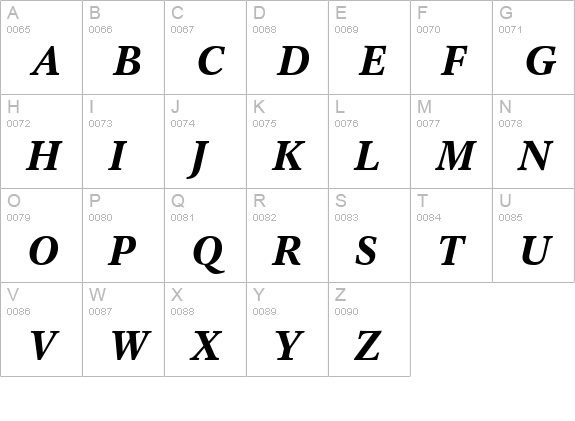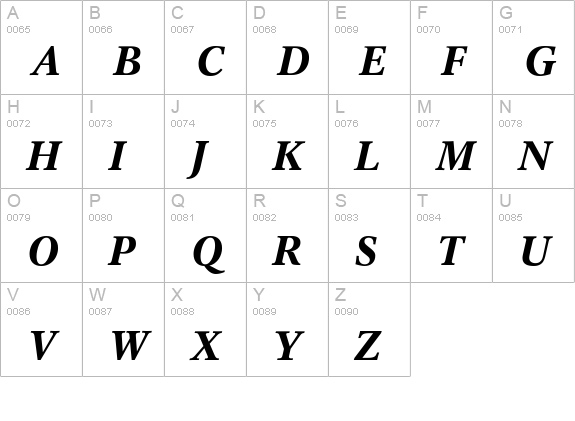
Informatics SSi Bold Italic Font Details
Informatics SSi Bold Italic is a strong, high-contrast, italic variant in the Informatics typeface family \xE2\x80\x94 well suited to headlines, attention-grabbing titles, and strong calls-to-action.
Informatics SSi Bold Italic is a captivating and stylish font that brings a modern and sophisticated touch to any design project. Its bold and italicized characters exude confidence and elegance, making it perfect for creating eye-catching headlines, titles, and logos. This font is not only visually stunning but also highly functional. Its well-crafted design ensures readability at various sizes, making it suitable for both print and digital applications. Whether you are designing a magazine spread, a website interface, or a corporate presentation, Informatics SSi Bold Italic will effortlessly elevate your design to the next level. What makes Informatics SSi Bold Italic even more appealing is that it is freely available to download at FontsMarket.com. This means that you can enhance your projects with this exceptional font without any financial constraints. Whether you are a professional designer or a passionate hobbyist, having access to high-quality fonts like Informatics SSi Bold Italic can significantly enhance the visual impact of your work. With its sleek curves, sharp lines, and bold presence, Informatics SSi Bold Italic is a font that demands attention and makes a lasting impression. It effortlessly merges classic elegance with a contemporary twist, making it a versatile choice for a wide range of design projects. Don't miss the opportunity to add Informatics SSi Bold Italic to your font collection. Visit FontsMarket.com today and download this stunning font for free. Unleash your creativity and let Informatics SSi Bold Italic take your designs to new heights.